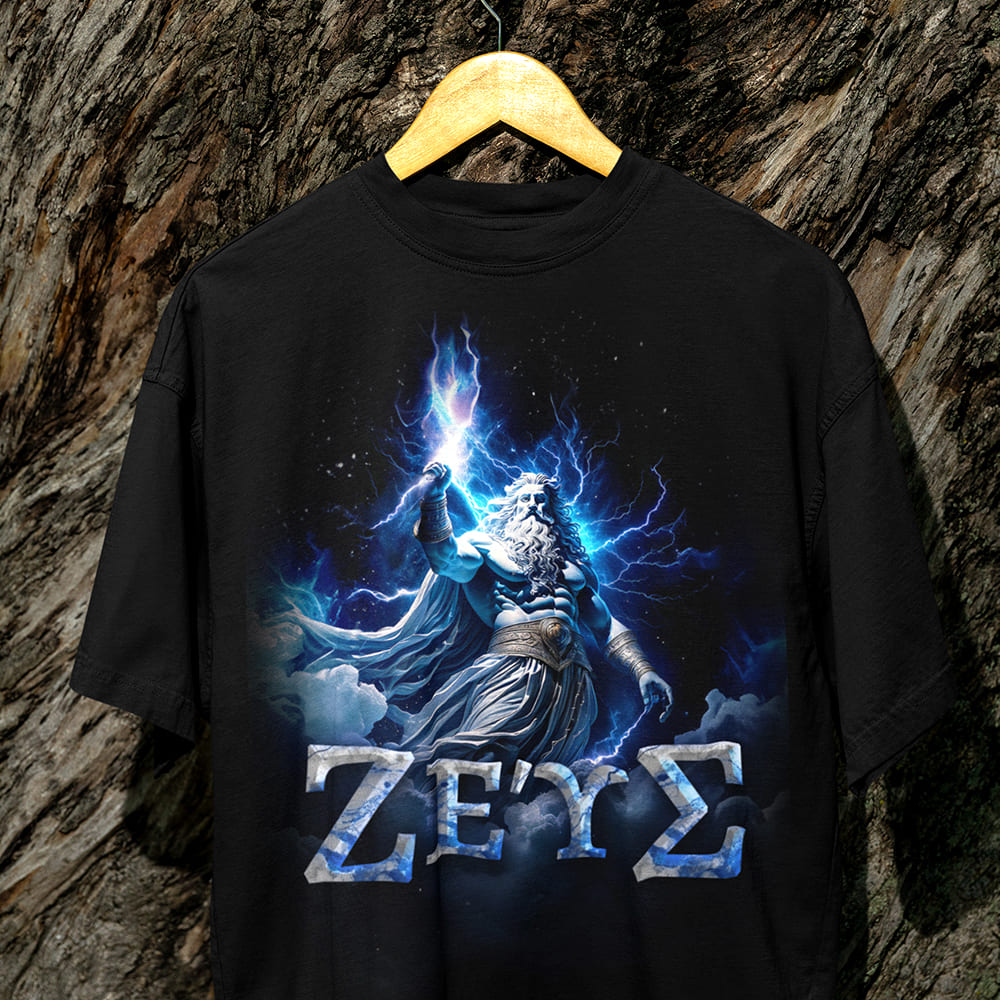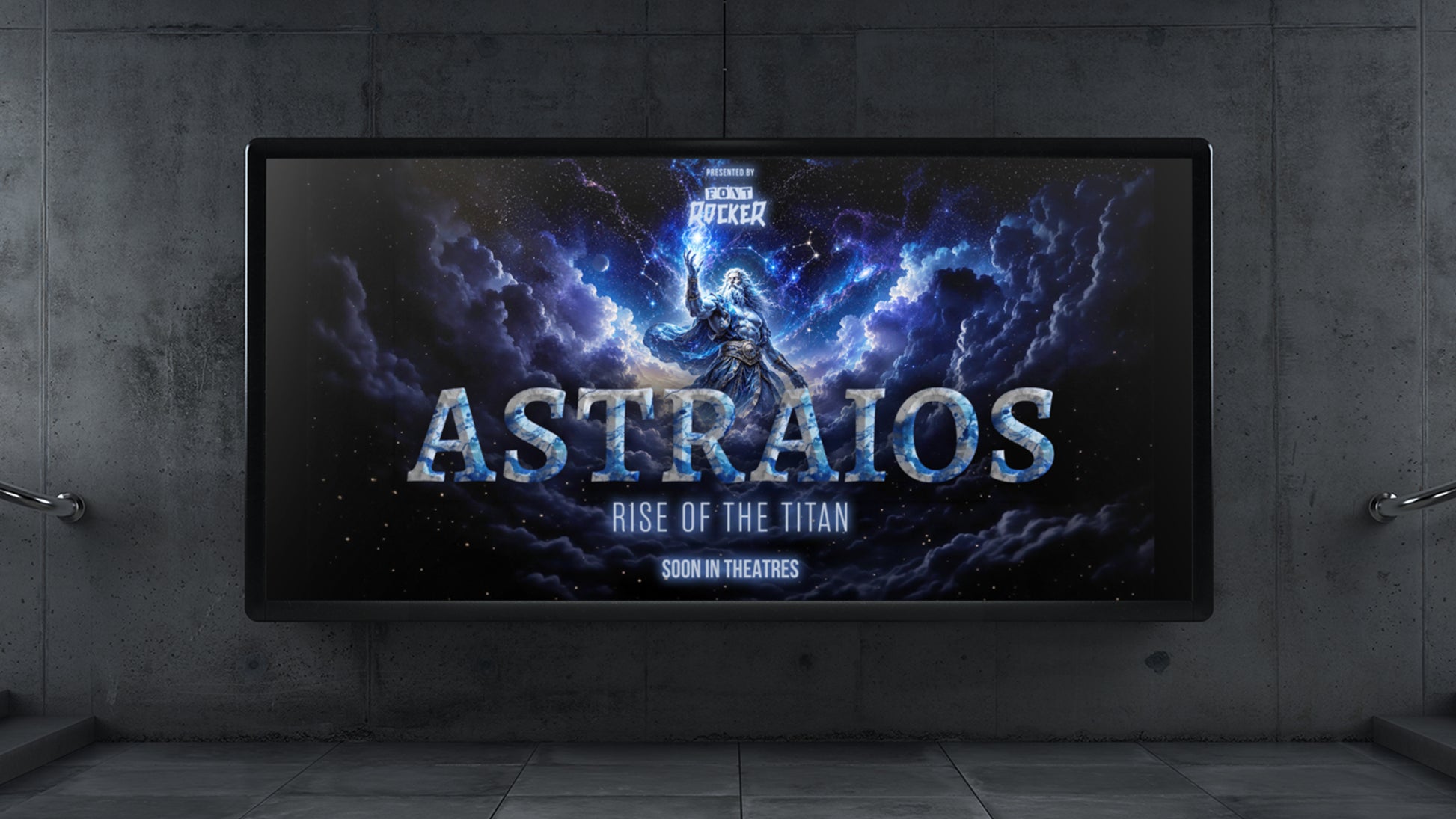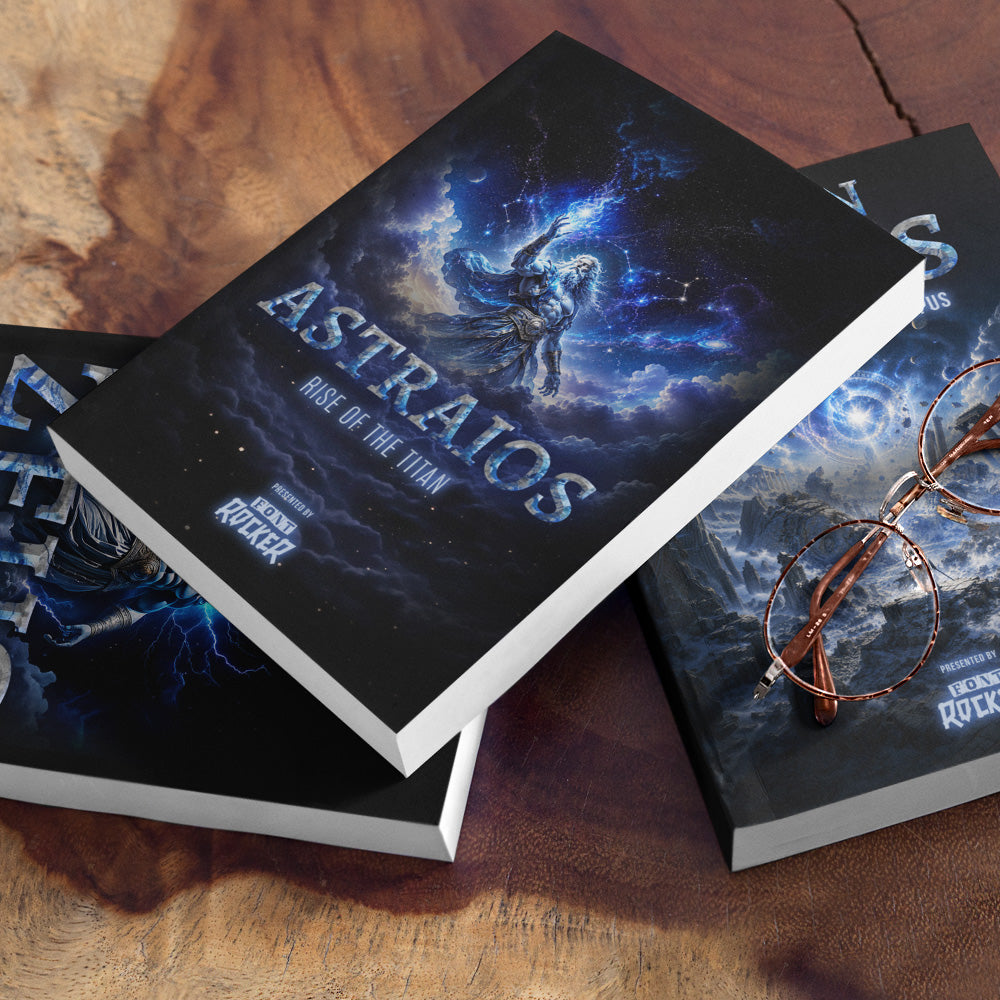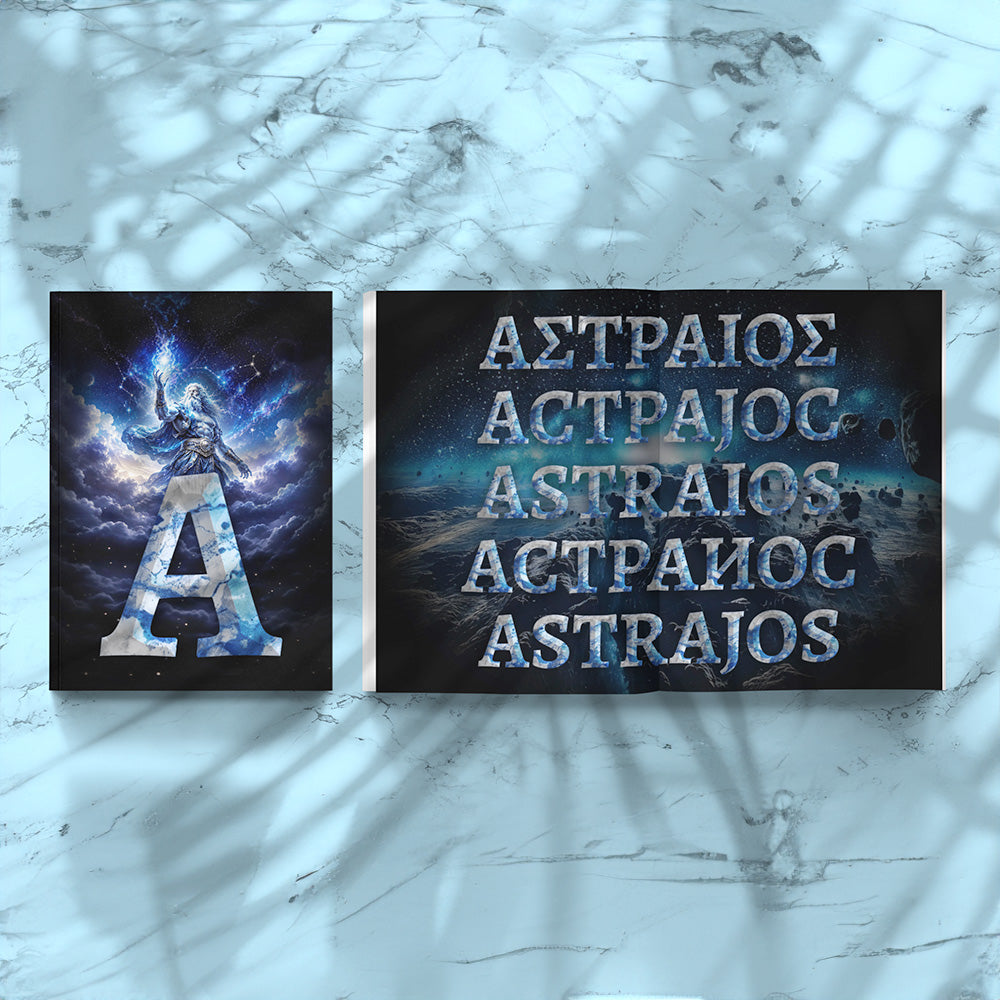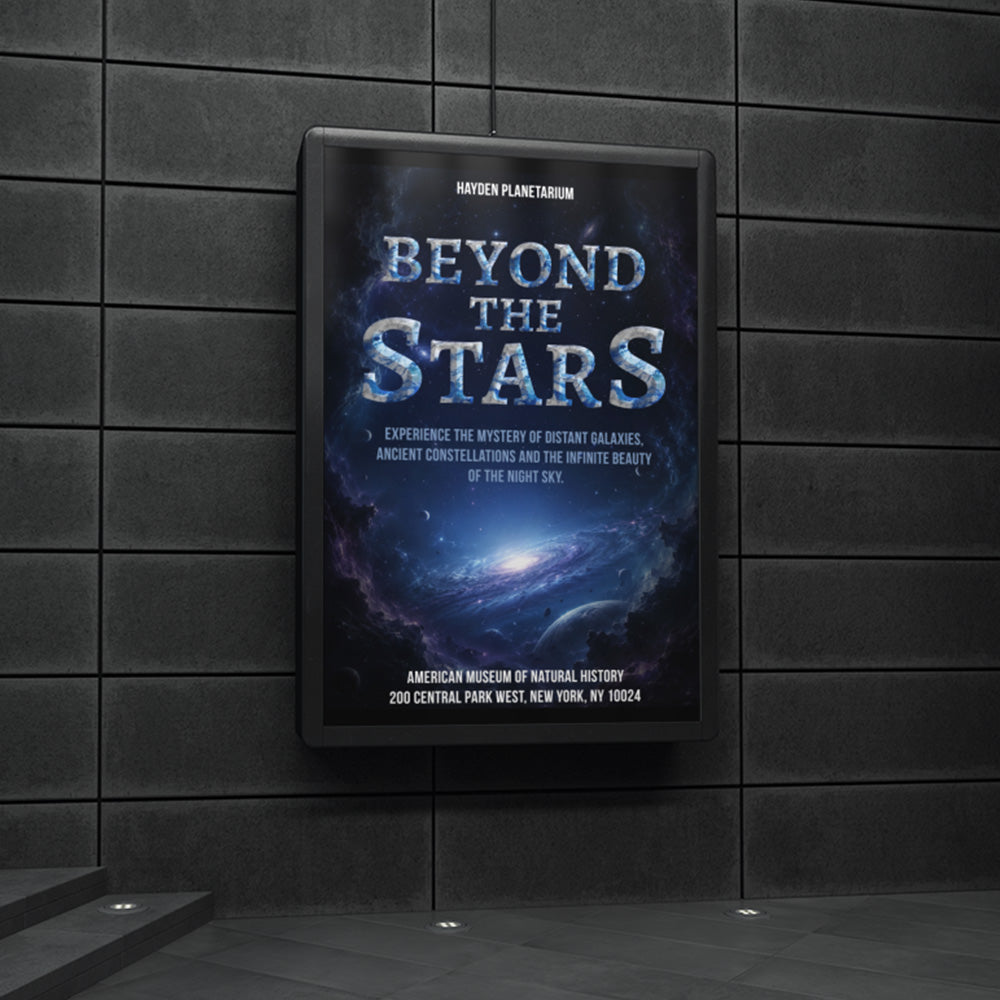
Astraios Font
Starborn. Exalted. Infinite. πβοΈβ¨
When the last light fades beyond the horizon and the firmament opens above, the realm of the Astraios Font begins.
Inspired by Astraios, the Titan of the stars, twilight, and the winds, this font carries the power of the cosmos within every character. Majestic, mysterious, and monumental β like a message hidden among the stars for thousands of years.
Why Choose the Astraios Font?
πΉ Forged beneath the firmament β made for legends β A typeface that feels as if it were formed from starlight and carved into forgotten temples.
πΉ Perfect for monumental designs β Whether for movie posters, book covers, logos, games, album artwork, or extraordinary branding projects, the Astraios Font gives every creation cosmic grandeur.
πΉ Powerful, mystical, eternal β A font that is not simply read. It appears like a sign in the night sky β powerful, mysterious, and unforgettable.
Unfold the firmament above your design!
With the Astraios Font, you bring the power of the Titans, the order of the constellations, and the boundless vastness of the heavens into your project. A font for designs that do not fade into the background β but continue to shine long after the last light has gone.